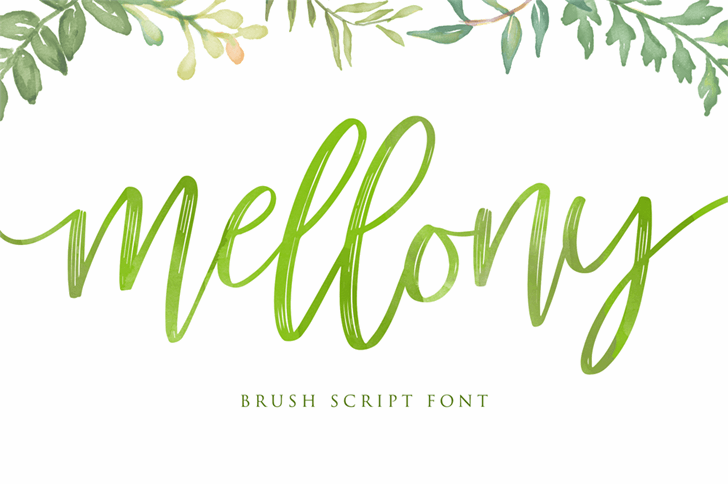
Mellony Brush Font
Continue to be a beautiful brush font. Introducing Mellony Brush Font! Mellony Script designed and shared by alit design. This font is best used for your design project that has the concept of fun, girly, romantic and elegant. Can also be applied to the design of a logotype, header website, wedding logo, romantic design, make some lettering a quote, t-shirt design etc.